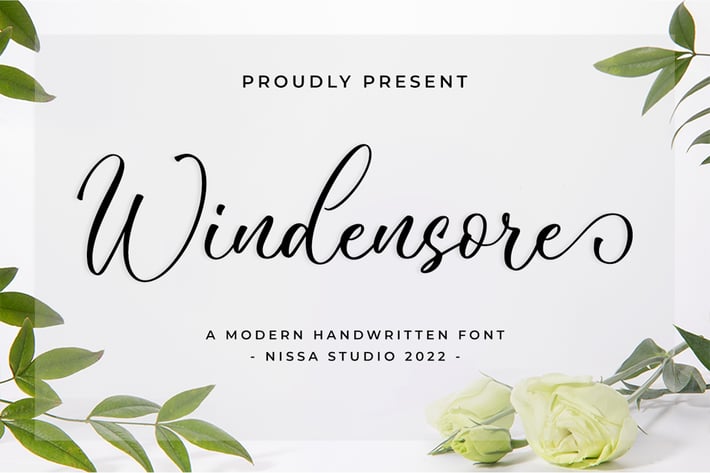
Windensore - Wedding Font
Windensore is a beautiful and delicate handwritten font with a unique feel and a stunning impact. It will add a luxury spark to any design project that you wish to create!
Each Font Has:
Modern Handwritten Font
Beautiful Swash (Ending tail)
Beautiful Titling (Beginning tail)
Special Ligatures